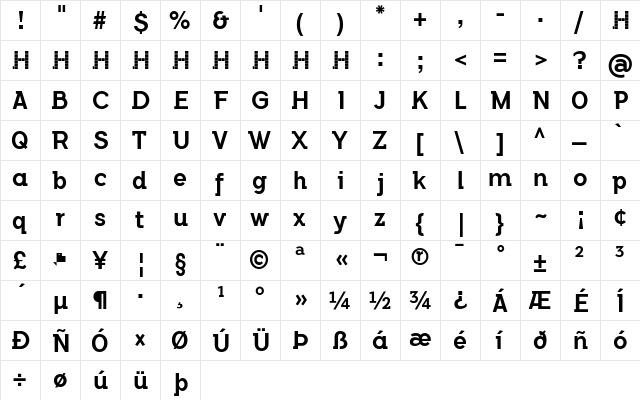
Flamante SemiSlab Medium
| Foundry | deFharo |
| Designer | Fernando Haro |
Design Context for Flamante SemiSlab Typeface
Flamante SemiSlab features prominent, blocky serifs that give it a confident, grounded presence — equally at home in editorial settings and bold branding work.
Works well in editorial design, news publishing, impactful branding, and poster typography.
Pro Tip: Try Flamante SemiSlab set tight in headlines for a classic editorial feel. Its slab serifs create strong horizontal rhythm that anchors a page layout.